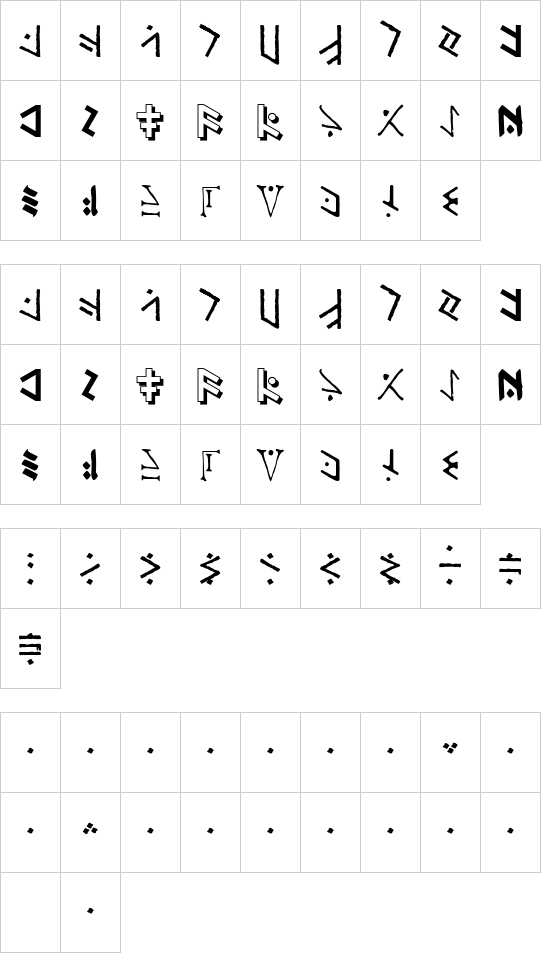
Temphis Sampler
About Temphis Sampler
Temphis Sampler is a flexible decorative display face, offering a sampler of bold, eclectic letterforms that feel hand-assembled from several styles. The characters carry plenty of personality and variation, reading as expressive and a little unpredictable rather than uniform.